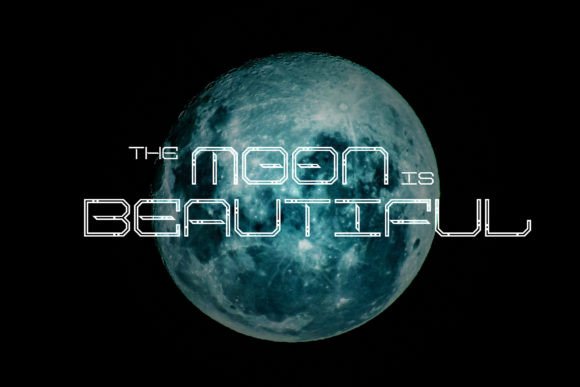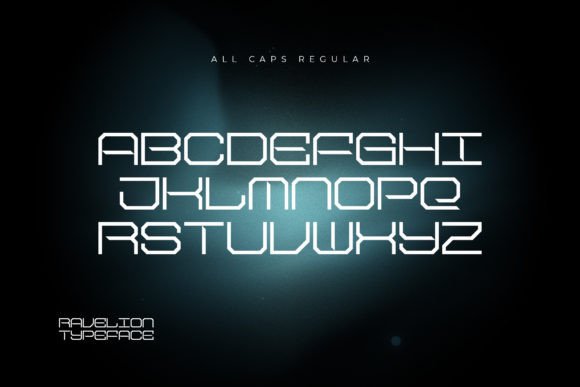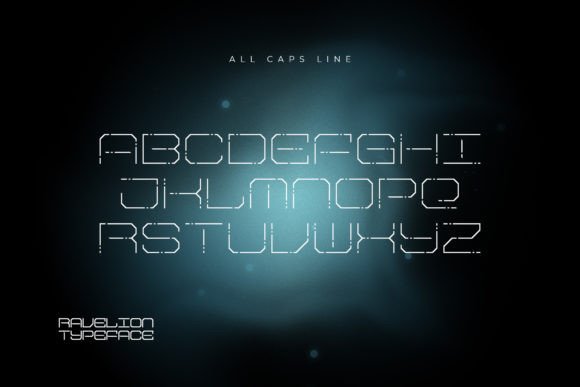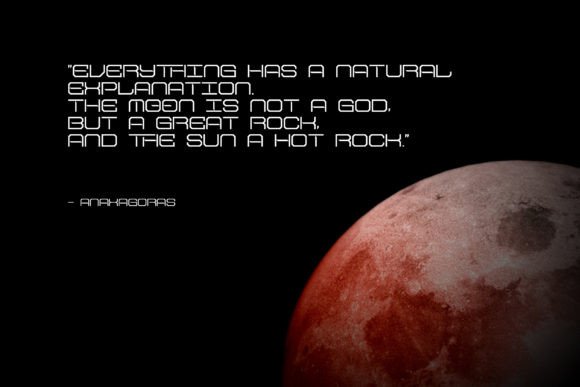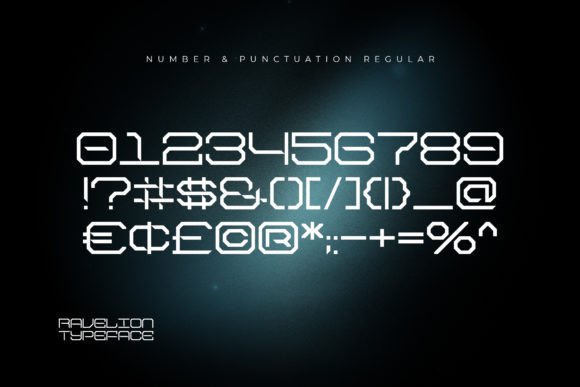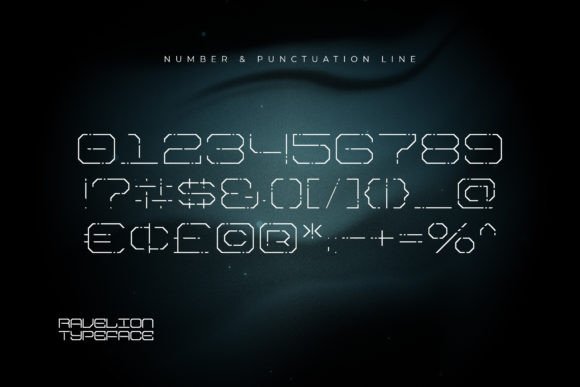
Introduction to Ravelion Font
Ravelion is a cool and modern display font.
Add it confidently to your creative projects and you will be astounded by the outcome generated .
Key Features of Ravelion Font
Why Choose Ravelion Font?
Ravelion Font offers exceptional quality and versatility, making it a valuable addition to your design toolkit. Whether you’re creating for personal projects or commercial use, Ravelion Font delivers professional results.